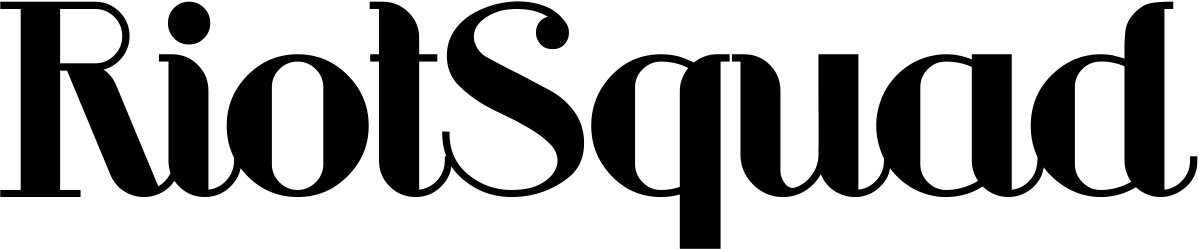
RiotSquad Font
Designed byNicks Fonts
If you’re looking for a suitable fancy font to use in your next design, RiotSquad can work well. RiotSquad is a stunning, retro font with a classic, vintage vibe that can be utilized to give a classical feeling to any project that needs to stand out. This sophisticated retro font is perfect for designing posters, cards, branding, logos, and other projects.